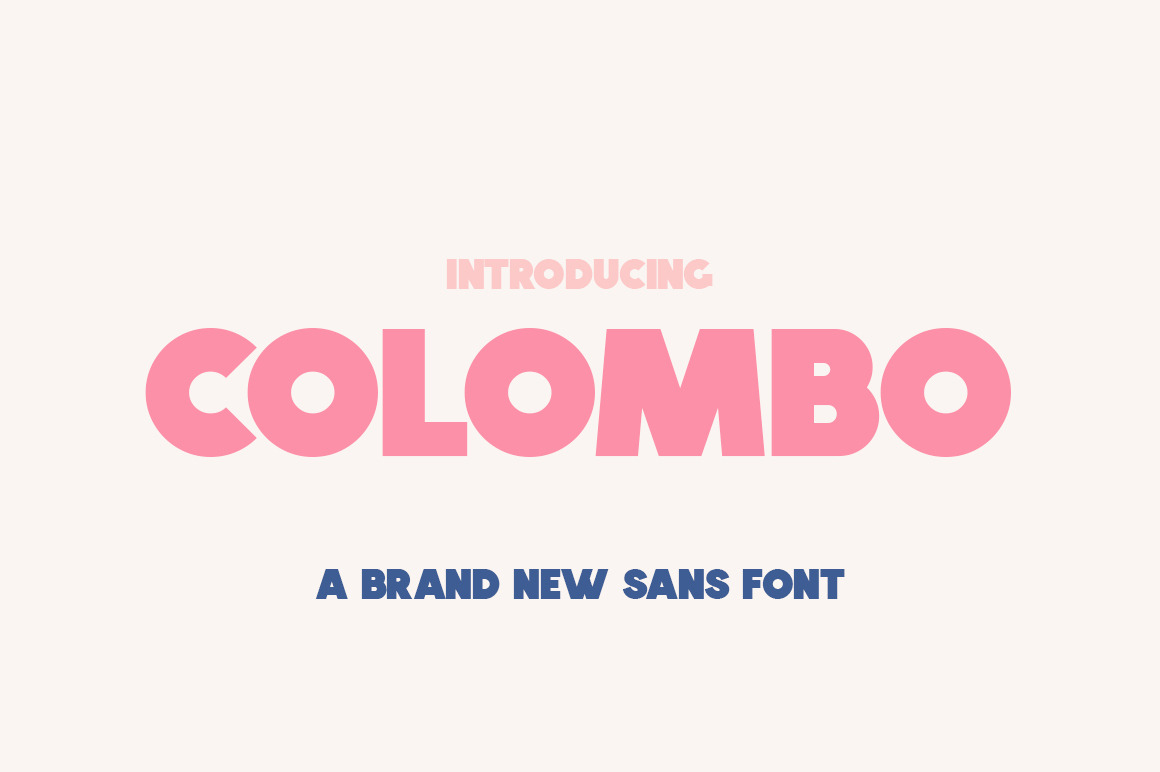
Colombo Sans Font
Introducing Colombo a brand new font that stands out from the crowd! Large enough to stand alone but also fun and legible as block text or as a design accent. Enjoy!